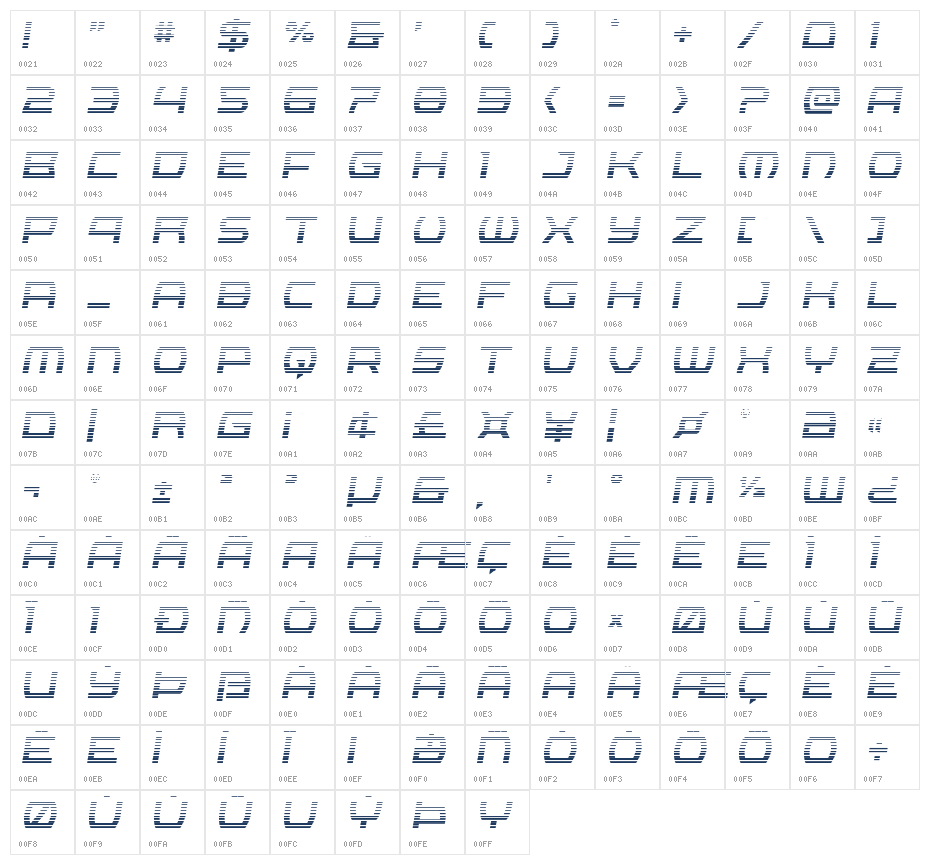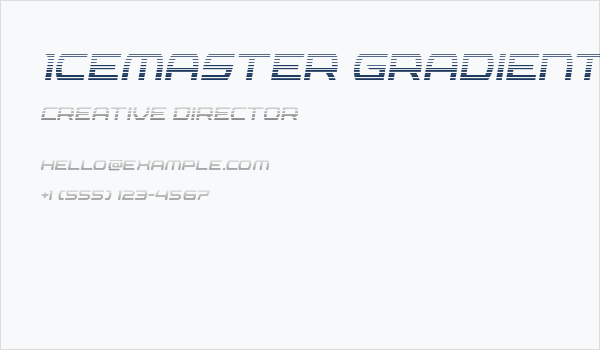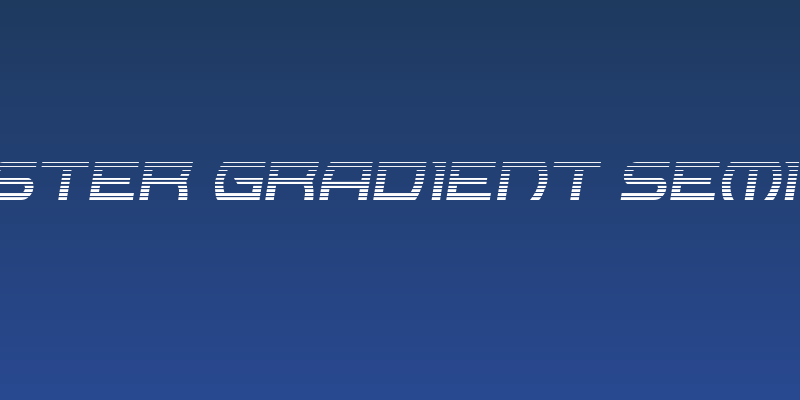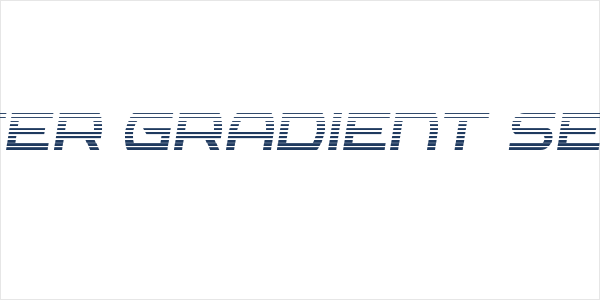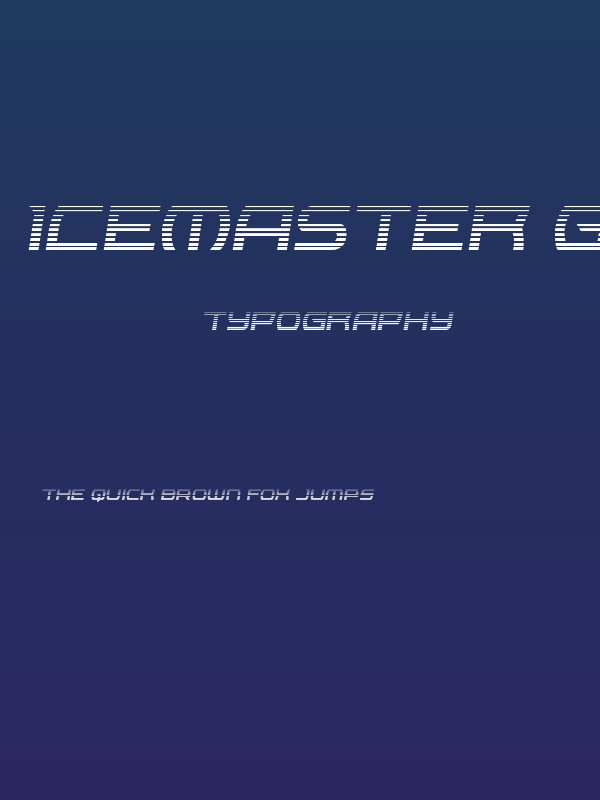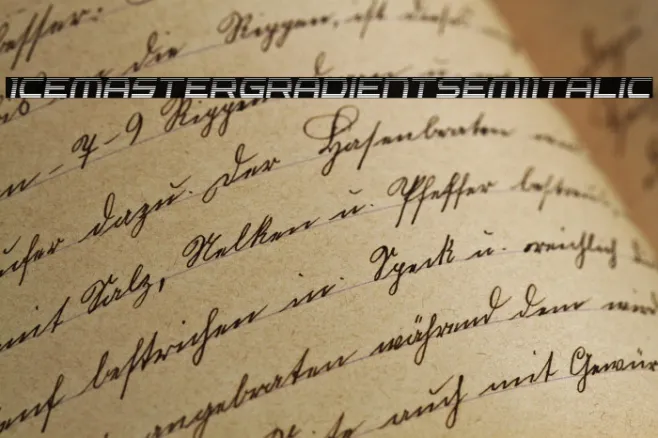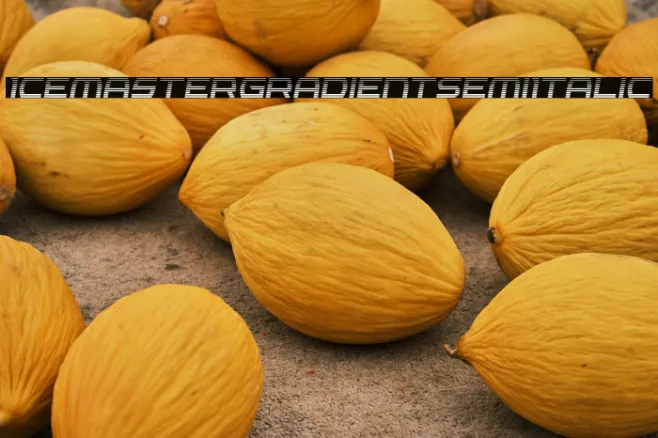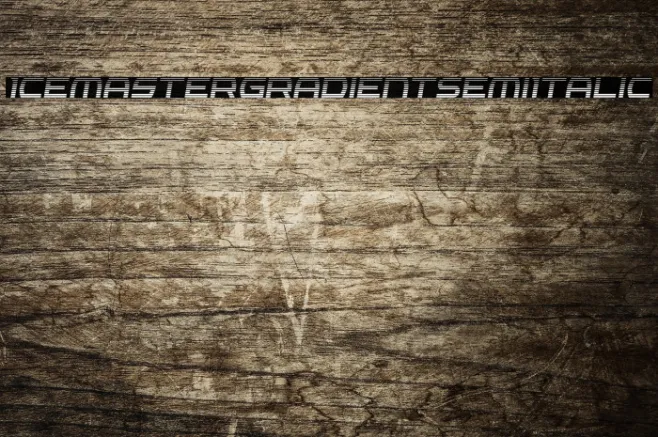
Icemaster Gradient Semi-Italic Font
Icemaster Gradient Semi-Italic Description
A stylized, futuristic sans-serif font with horizontal lines creating a striped effect across the characters.
| Overall Style | Modern, Futuristic |
| Use Case | Headlines, Digital interfaces, Logos |